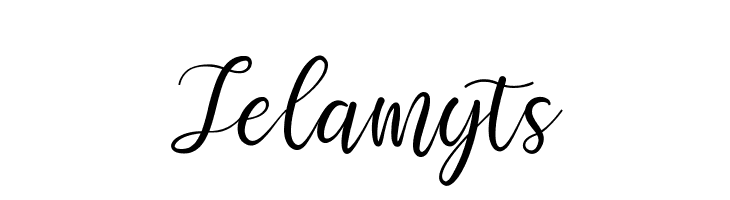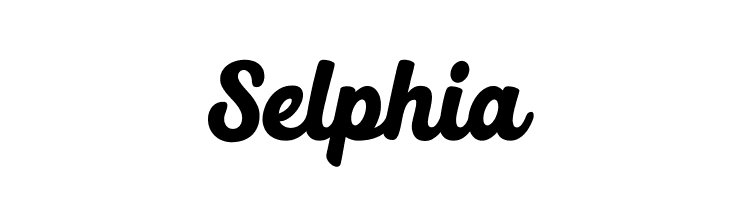
A lively and elegant script font with flowing, interconnected letterforms.
A bold, geometric font with sharp angles and a futuristic style.
A playful, handwritten font with flowing, slightly irregular strokes.
A bold, expressive handwritten font with dynamic strokes and a playful style.
A vintage typewriter-style font with rounded edges and a handcrafted look.
A monospaced typewriter-style font with a vintage, textured appearance.
A vintage, handwritten-style font with dynamic, fluid characters.
A bold, geometric font with angular shapes and a modern style.
A playful, handwritten script font with bold, dynamic strokes.
A cursive, elegant font with interconnected letters and a stylish flow.